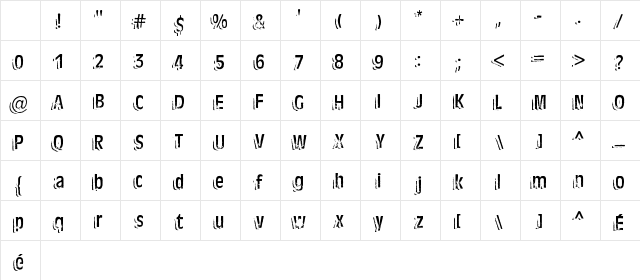
Ten Ton Ballyhoo Regular
Designer: S. John Ross
Design Context for Ten Ton Ballyhoo
Ten Ton Ballyhoo is a composed and adaptable typeface that performs quietly and consistently across a wide range of design contexts.